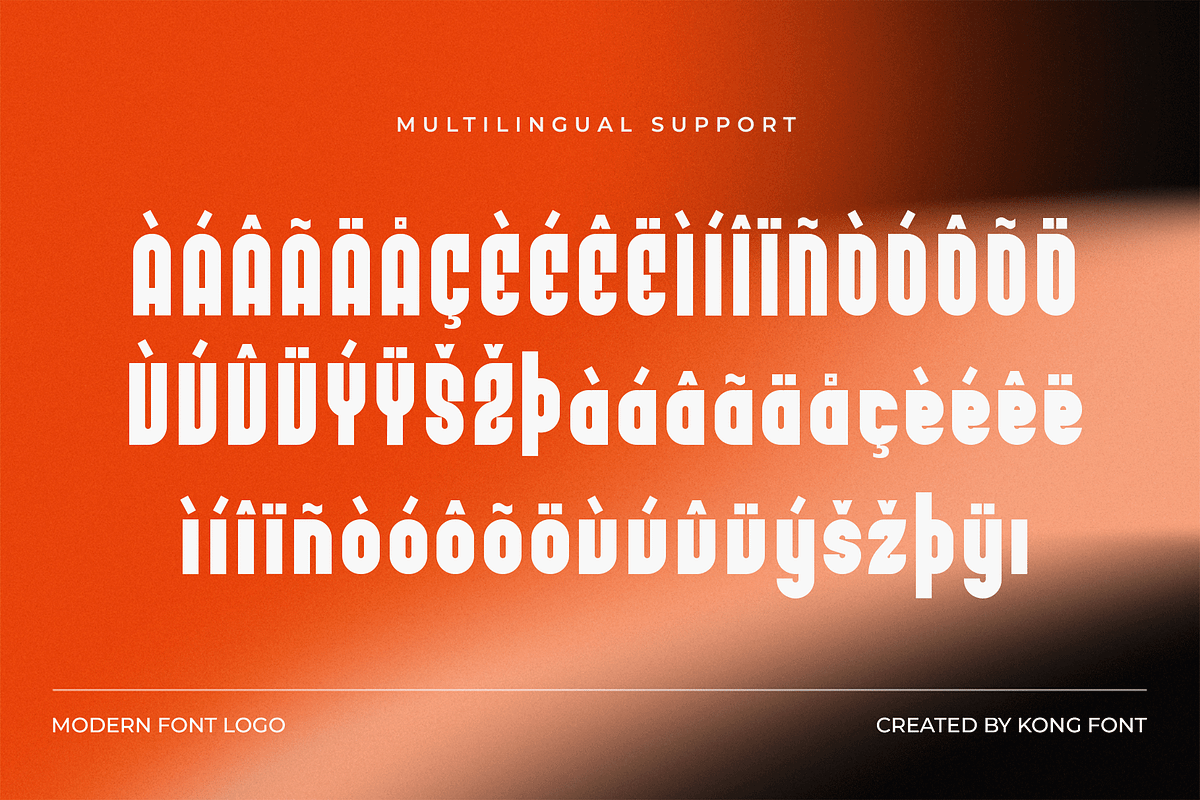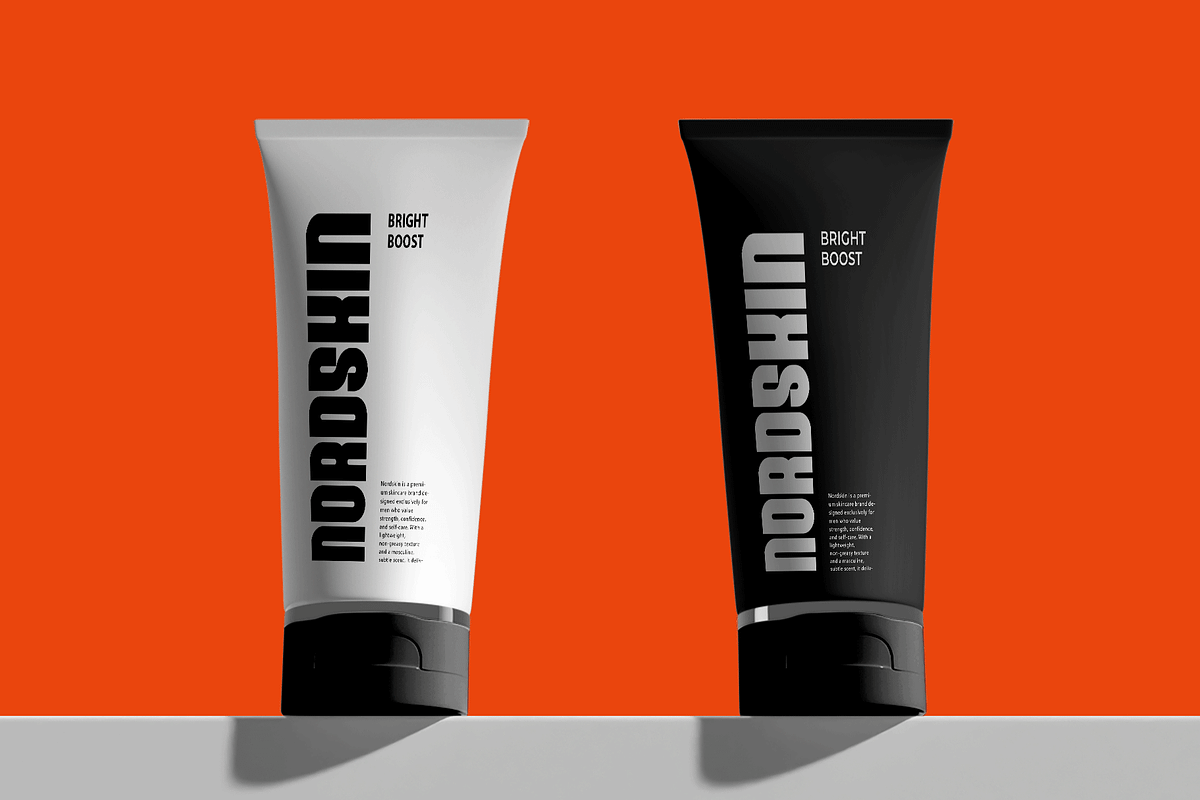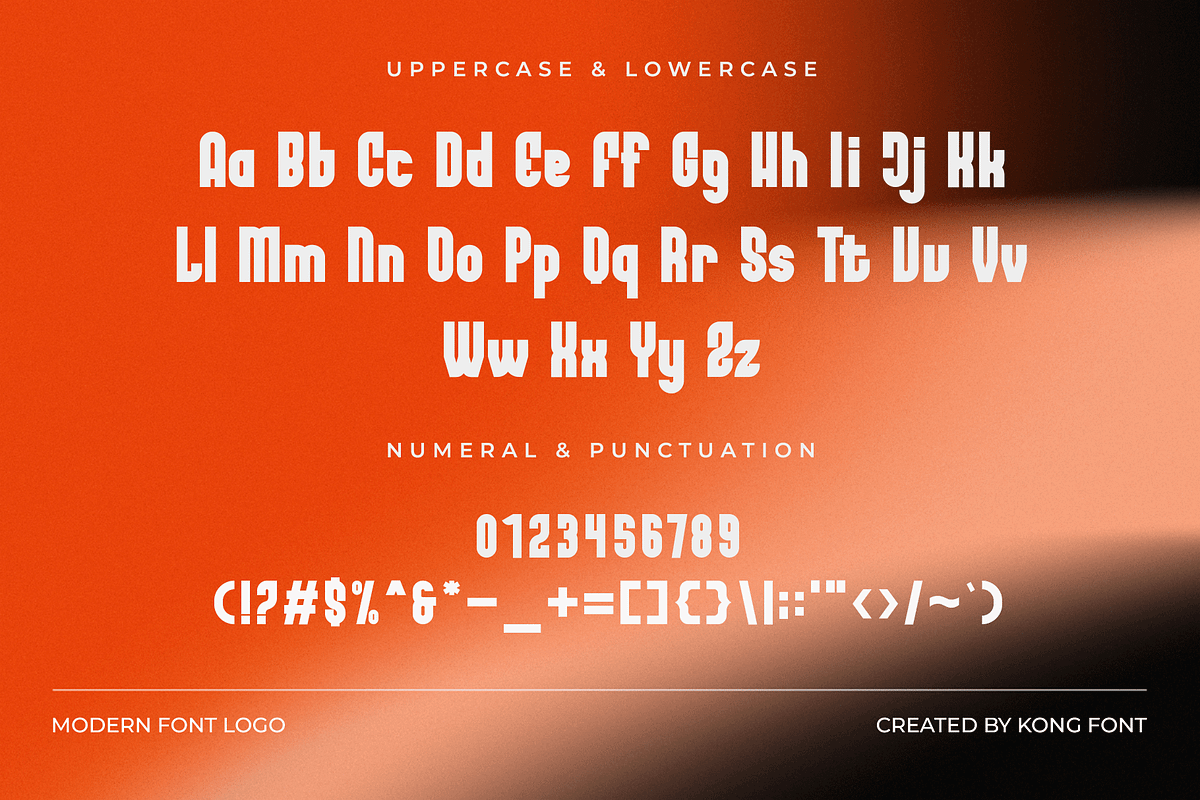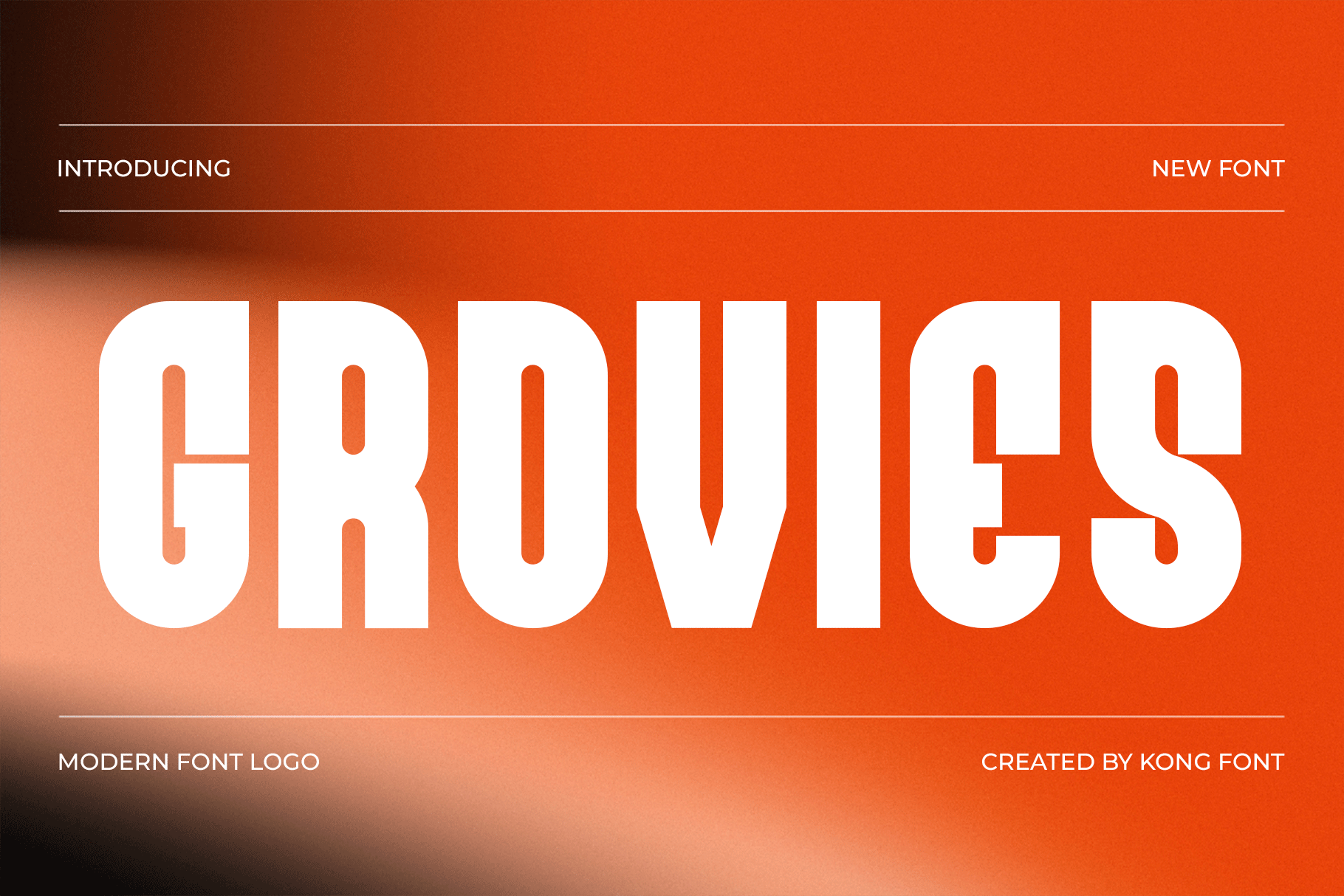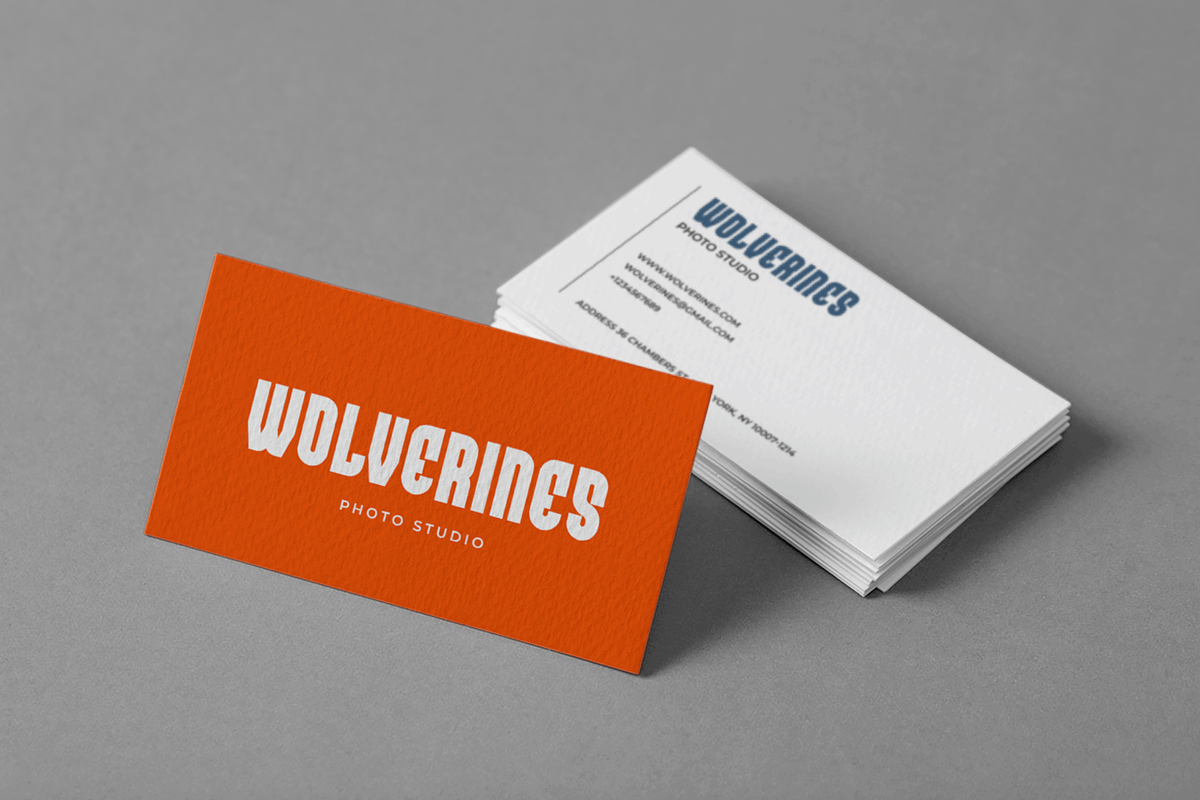
Grovies – A Modern Logo Font
Say hello to Grovies, a modern logo font crafted with precision and style in mind. Designed for sleek brand identities, Grovies blends geometric structure with subtle curves, giving each character a bold yet approachable personality.
Perfectly suited for logo design, packaging, headlines, and modern brand visuals, Grovies delivers a clean, futuristic aesthetic while maintaining strong readability. Whether you're working on a creative agency logo, a lifestyle brand, or a digital product, Grovies helps your designs stand out with confidence and clarity.
Take your branding game to the next level with Grovies where simplicity meets sophistication.